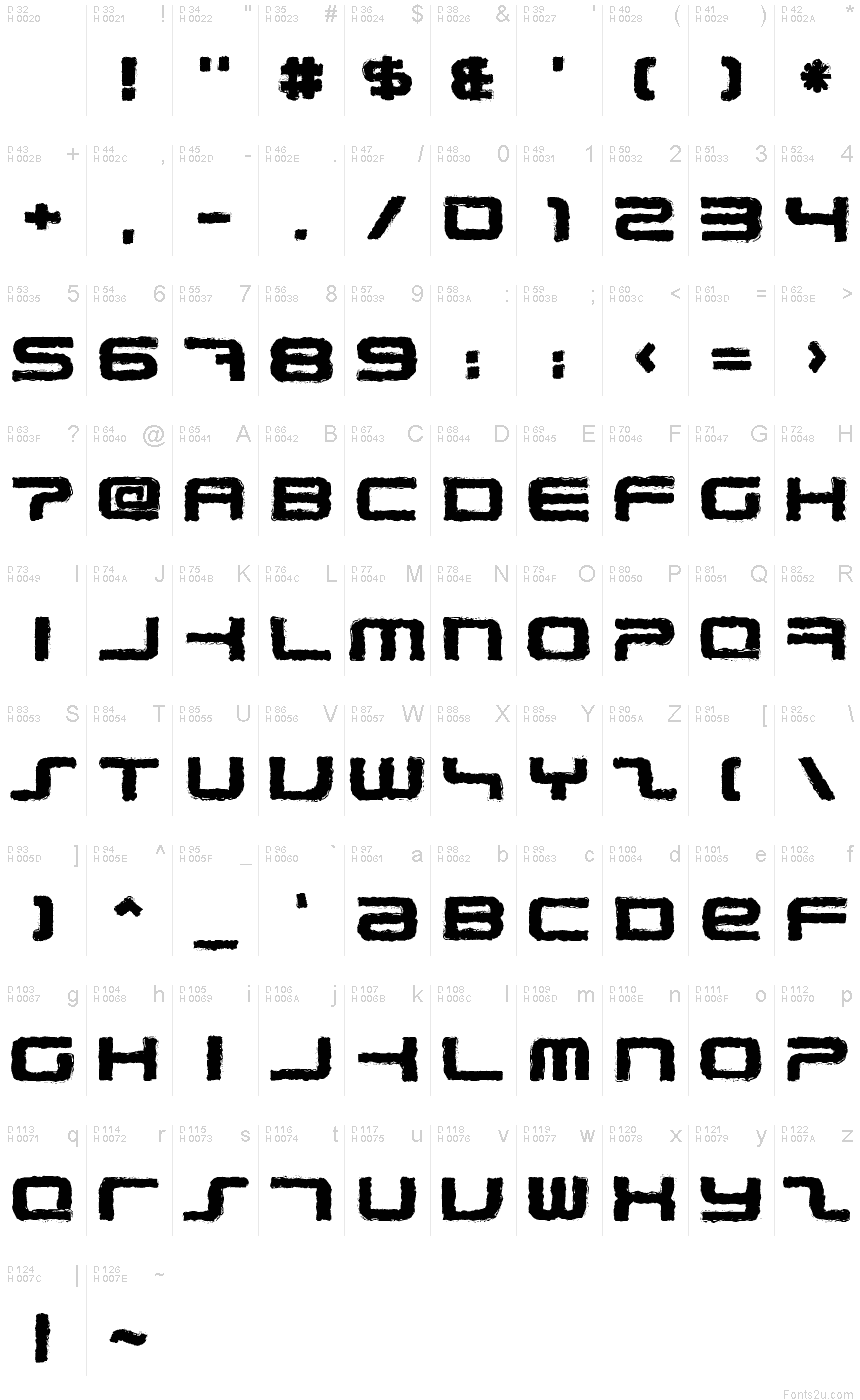
PhatBoySlim-Rough
PhatBoy Slim Rough and College - May 2011
- A sketchy/rough version of the font - 1 weight
- College version of PhatBoy - 1 weight
- A sketchy/rough version of the font - 1 weight
- College version of PhatBoy - 1 weight